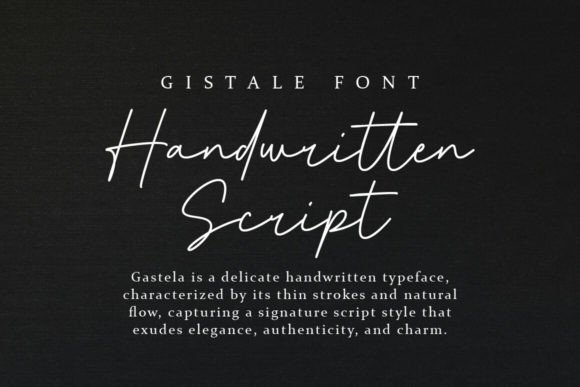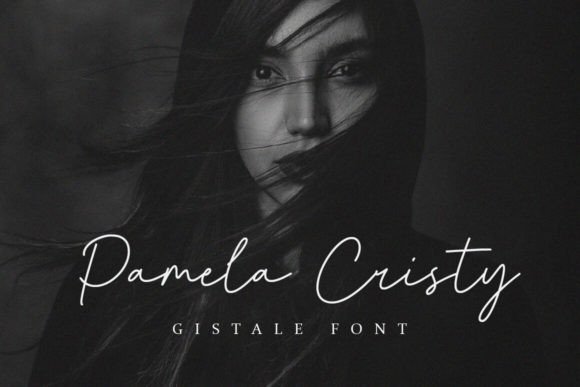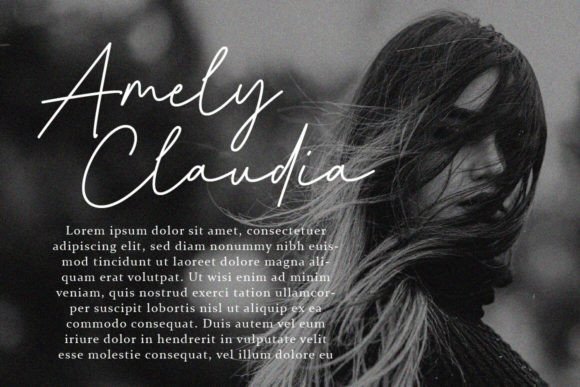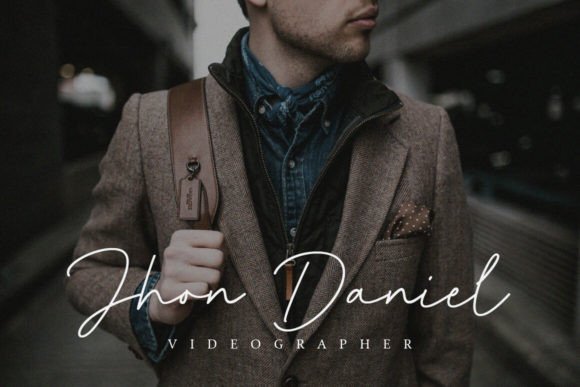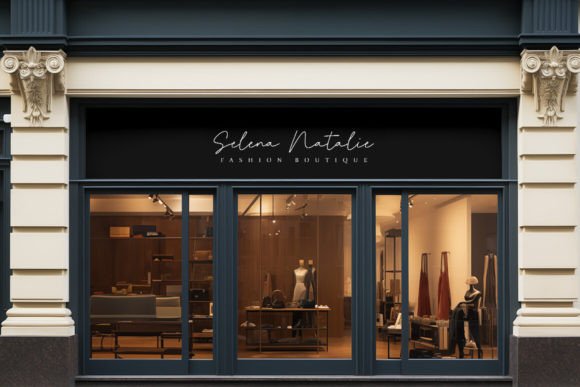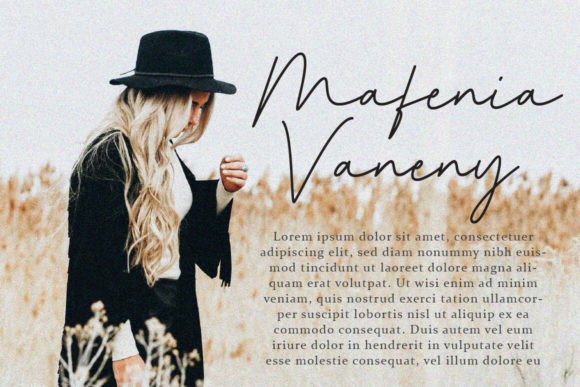
Introduction to Gistale Font
Have you ever been browsing through a beautifully designed wedding invitation and thought to yourself, ‘I wish I could create something as lovely as that’? As designers, we’ve all been there – stuck in a creative rut, searching for the perfect font to elevate our project to the next level. This is where the Gistale Font comes in – a romantic and sweet calligraphy typeface that’s sure to make your design stand out.
With its casual and elegant touch, the Gistale Font is perfect for a wide range of creative projects, from logos and wedding invitations to headings and t-shirts. Its high-quality design and transparent background make it a valuable resource for designers looking to add a touch of sophistication to their work.
Key Features of Gistale Font
- High-quality, elegant design perfect for creative projects
- Unique characteristics: Distinctive flourishes and stylish lines
Honest Review: Gistale Font
As a designer, I’m always on the lookout for high-quality fonts that can elevate my creative projects. The Gistale Font is a great addition to my design resource collection, offering a unique and versatile style that’s perfect for a wide range of applications.
- ✨ Elegant and sophisticated design aesthetic
- ✨ Wide range of languages supported, making it a great choice for international projects
- ✨ Transparent background, allowing for easy customization and layering
One of the standout features of the Gistale Font is its high-quality design. The font is well-crafted and visually appealing, making it a great choice for any creative project. The transparent background is also a major plus, allowing designers to easily customize and layer the font with other design elements.
- ⚠️ Limited character set, which may be a drawback for some users
- ⚠️ Not suitable for use as a bold or condensed font, due to its elegant design aesthetic
Overall, I’m very impressed with the Gistale Font. It’s a great addition to any designer’s toolkit, offering a unique and versatile style that’s perfect for a wide range of applications. Whether you’re working on a free download project or a paid design job, the Gistale Font is definitely worth checking out.
Tips for Getting the Most Out of Gistale Font
For the best results, use the Gistale Font in conjunction with a high-quality design resource, such as a matching icon or image. You can also experiment with different font sizes and styles to add depth and visual interest to your design.
The Gistale Font is a versatile design resource that can be used in a variety of creative projects, including branding materials, marketing campaigns, and social media graphics. With its free download and transparent background, it’s a great choice for designers looking for a high-quality font to enhance their designs.